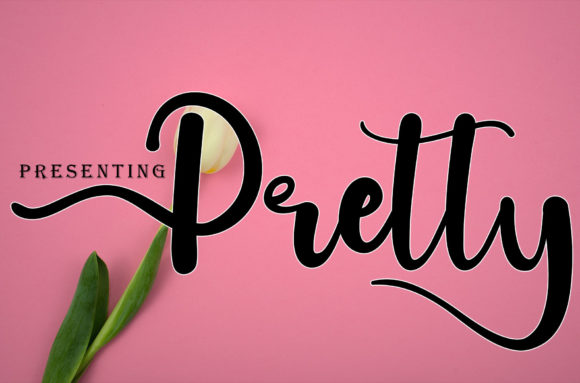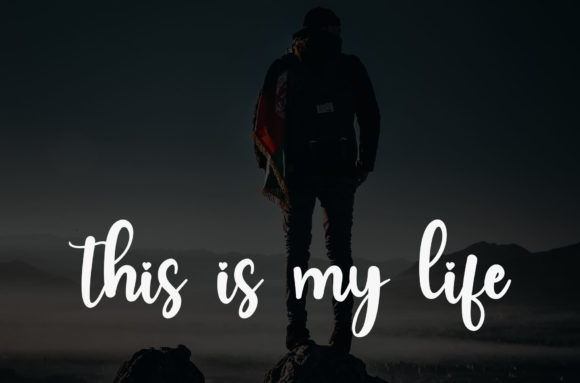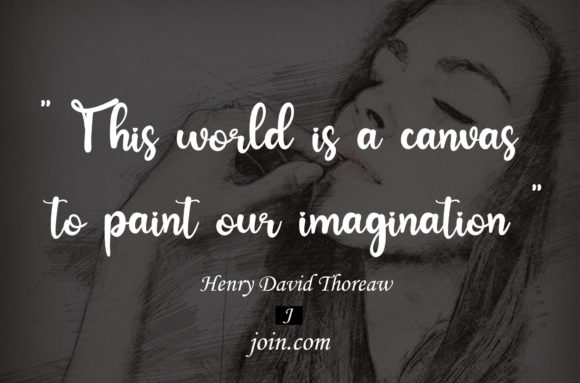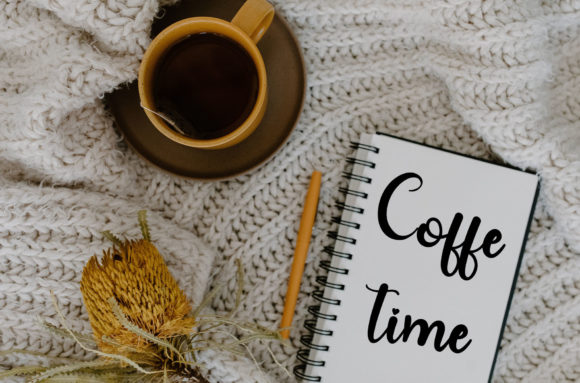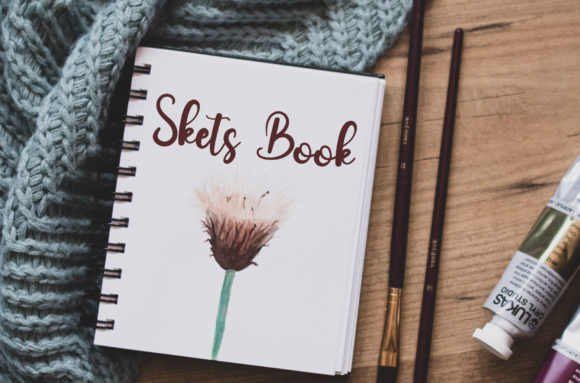
Pretty Font
About Pretty Font
Pretty is a captivating handwritten font that boasts a smooth, elegant, and characterful design. With its beautiful and balanced aesthetics, this font seamlessly integrates into a diverse range of design themes, making it a versatile choice for a wide design pool. Incorporate Pretty into your most creative ideas, and witness how it brings them to life with its unique charm and sophistication.
The smooth and elegant nature of Pretty sets it apart, creating a font that exudes a refined and stylish appeal. Whether used in formal documents, creative projects, or any design that demands a touch of character, Pretty enhances the overall visual experience with its handwritten charm.
The balanced design of Pretty ensures its adaptability to various contexts, making it a valuable asset for designers seeking a font that effortlessly complements different styles. Its versatility allows it to seamlessly fit into a myriad of creative endeavors, adding a personalized touch to each project.
In summary, Pretty is not just a font; it’s a handwritten masterpiece that brings smoothness, elegance, and character to your designs. Its balanced and beautiful design makes it a suitable choice for a broad range of applications. With Pretty, your most creative ideas are enhanced by a font that adds a touch of sophistication and uniqueness, turning your designs into visually captivating works of art.